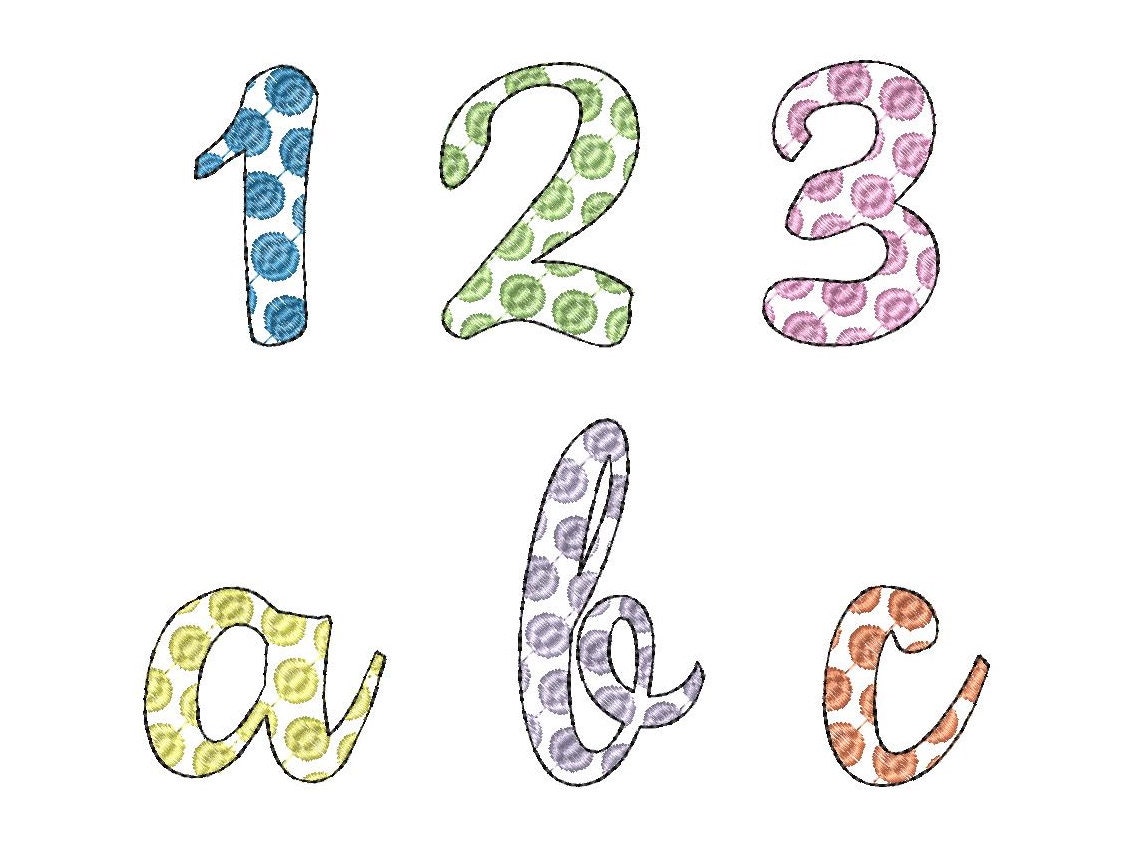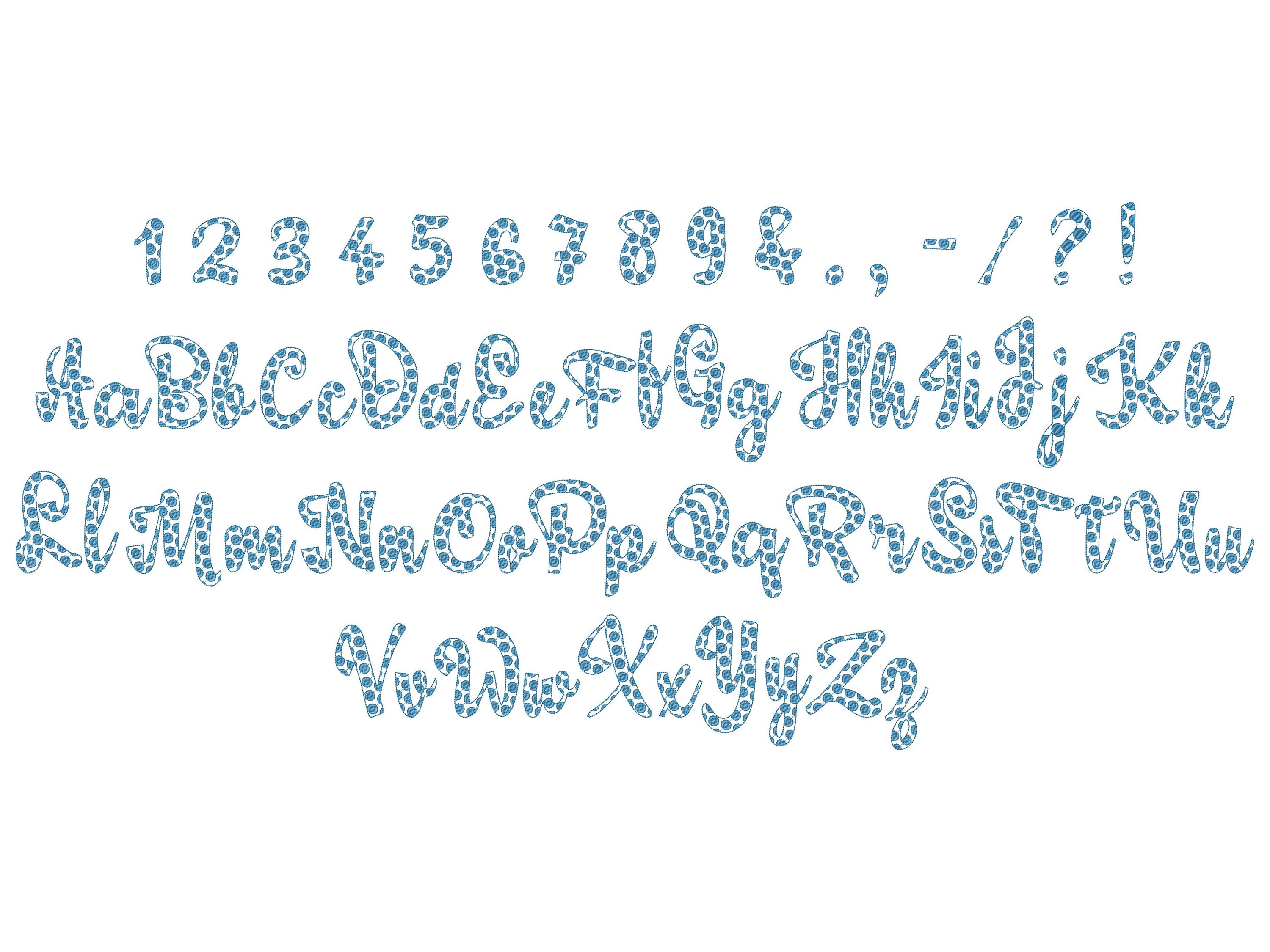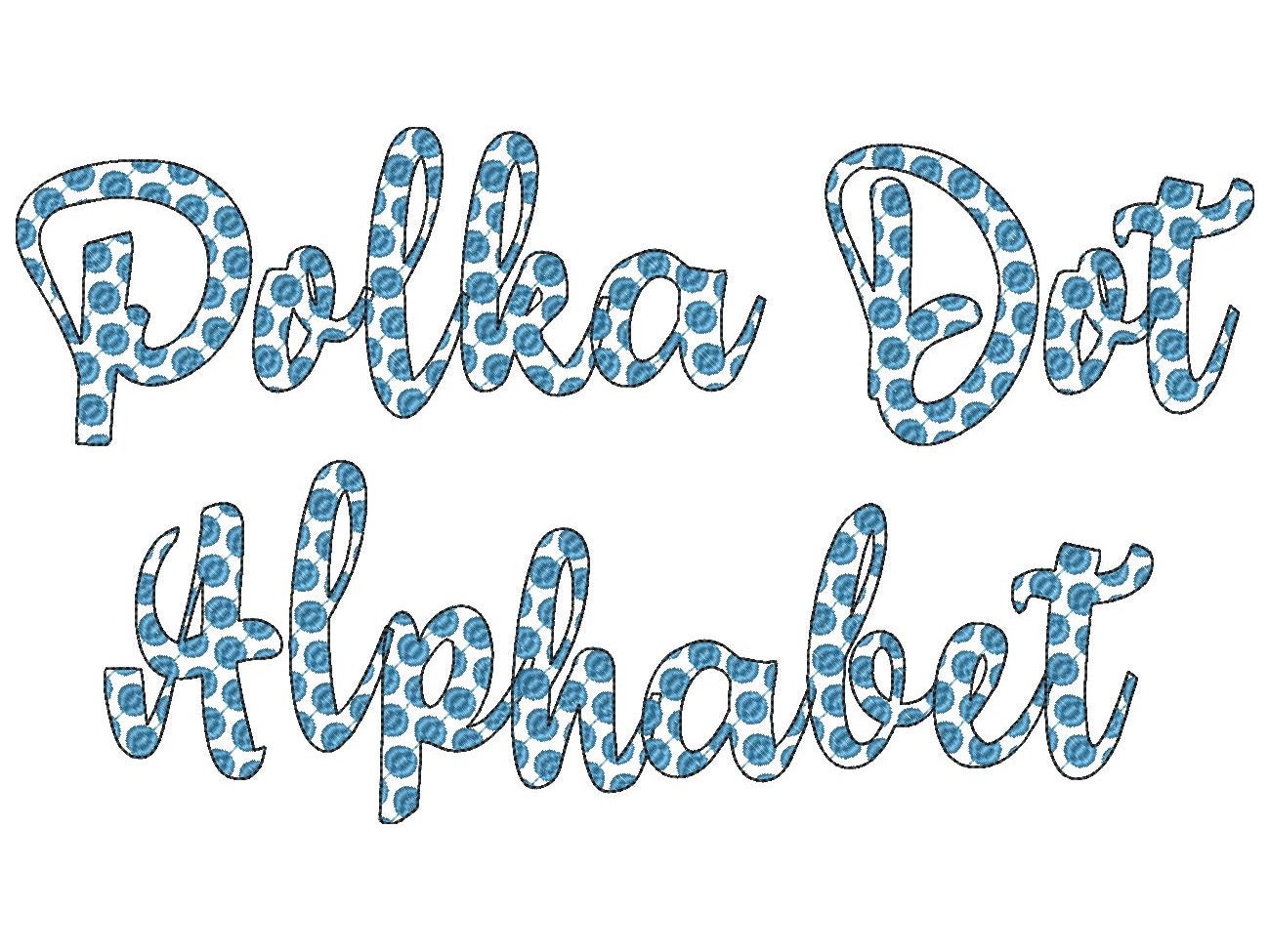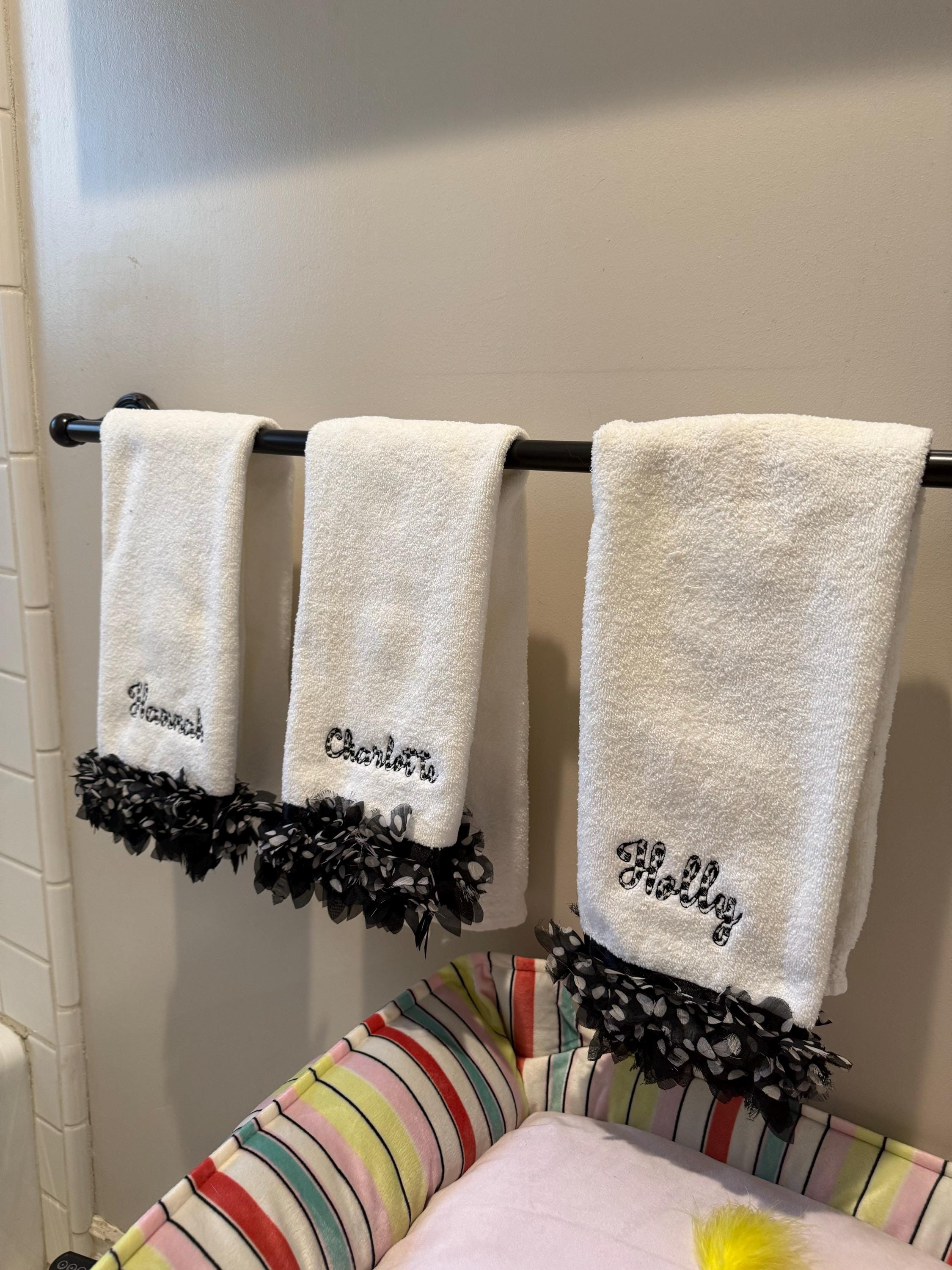
Polka Dot Alphabet FONT script letters and numbers machine embroidery designs in many sizes, kids funny font monogram name, BX font included
Uppercase, lowercase, numbers, and punctuation.